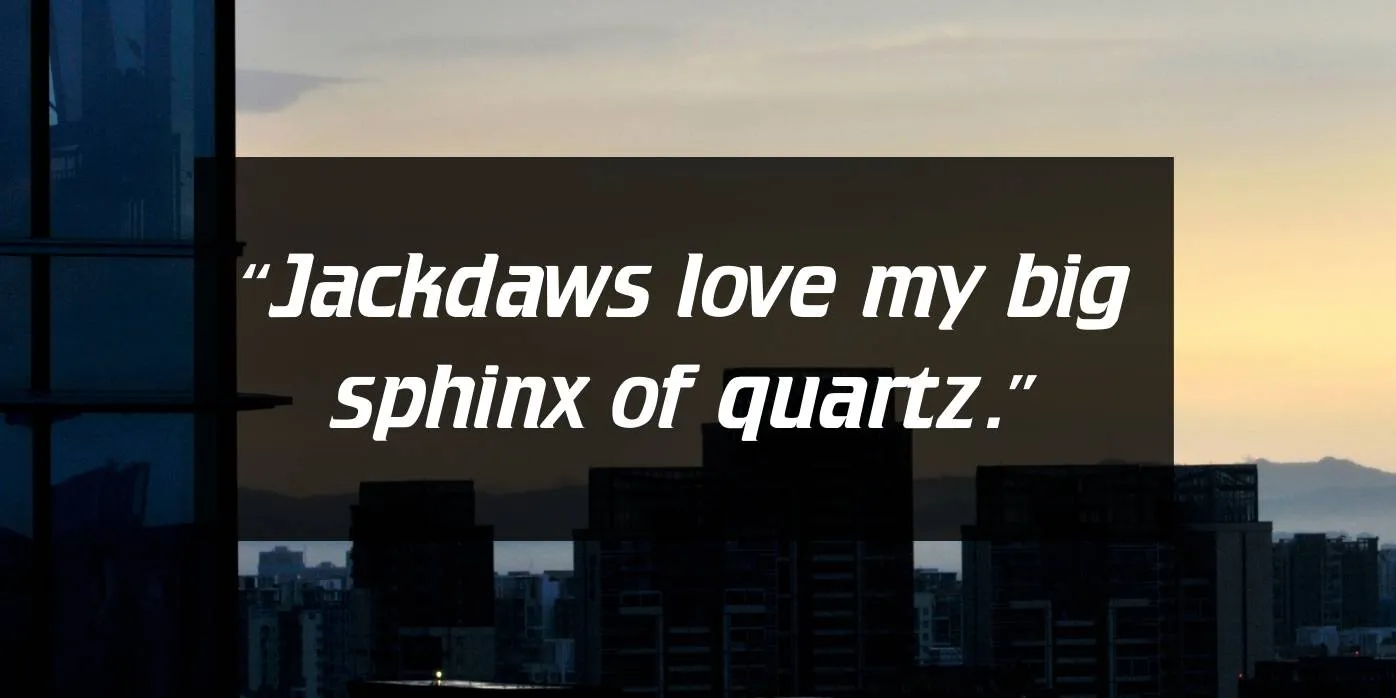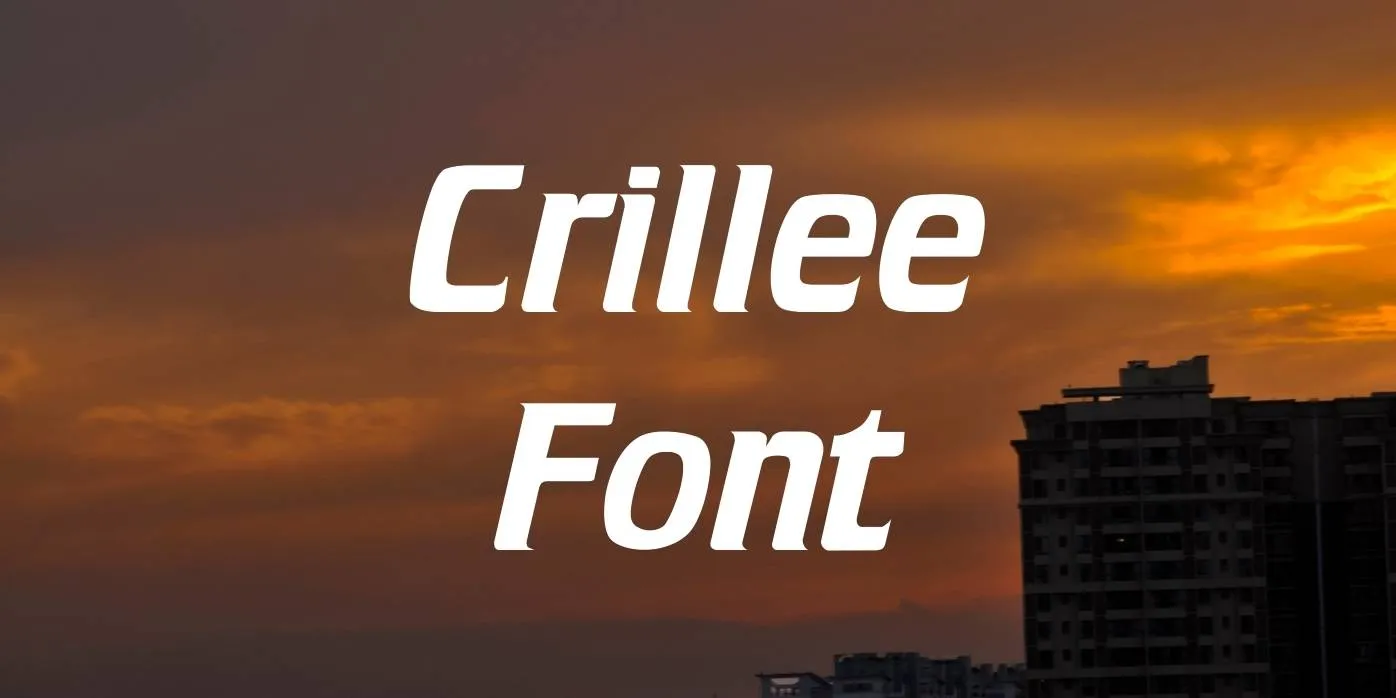
Crillee Font
Today, we discuss the very famous Crillee Font. It was designed by Peter Crilley in 1996 and has since become one of the most popular fonts around, used by thousands of people every day.¬† This typeface belongs to the display font family. Crillee Font is a unique font in that it’s designed to be as readable as possible. This is achieved by the thick strokes and the wide spacing between letters.
The result is a font that’s very easy to read, even at small sizes. It is available in three styles. Its Bold features make it perfect. Its alternative lakers font is best for different designs.
One of the main reasons why Crillee Font is so popular is because it’s incredibly versatile. It can be used for both formal and informal purposes, making it perfect for everything from business documents to personal use. Its generator tool is very classic to create many graphic designs.